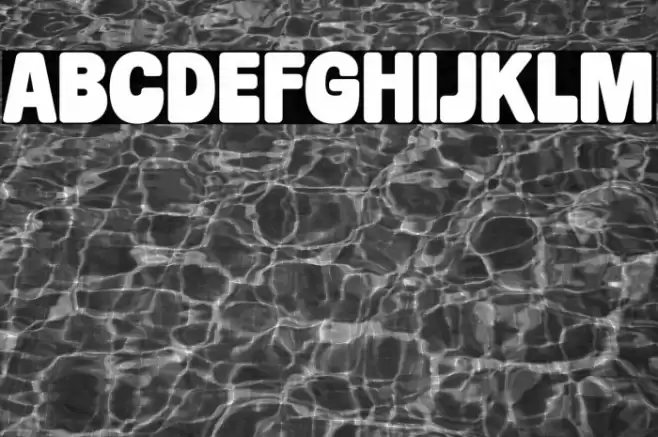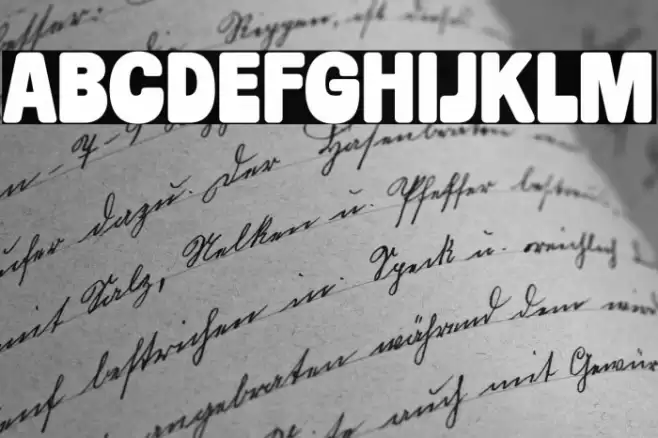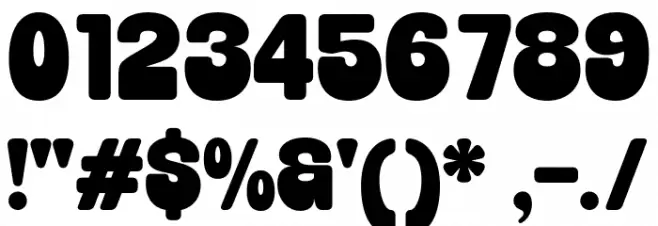
JtGilboys-Regular Font
JtGilboys-Regular Description
This font features bold, rounded characters with a playful and friendly appearance. The letters are uniformly thick, giving them a strong presence on the page. The rounded edges and smooth curves create a welcoming and approachable feel, making it suitable for designs that aim to convey warmth and friendliness. The numerals and special characters maintain the same bold and rounded style, ensuring consistency across all text elements.
A bold, rounded font with a playful and friendly style from Uncategorized fonts.
- Font: JtGilboys-Regular
- Proposed Projects: Ideal for children's books, playful branding, posters, and social media graphics.
- Overall Style: Playful